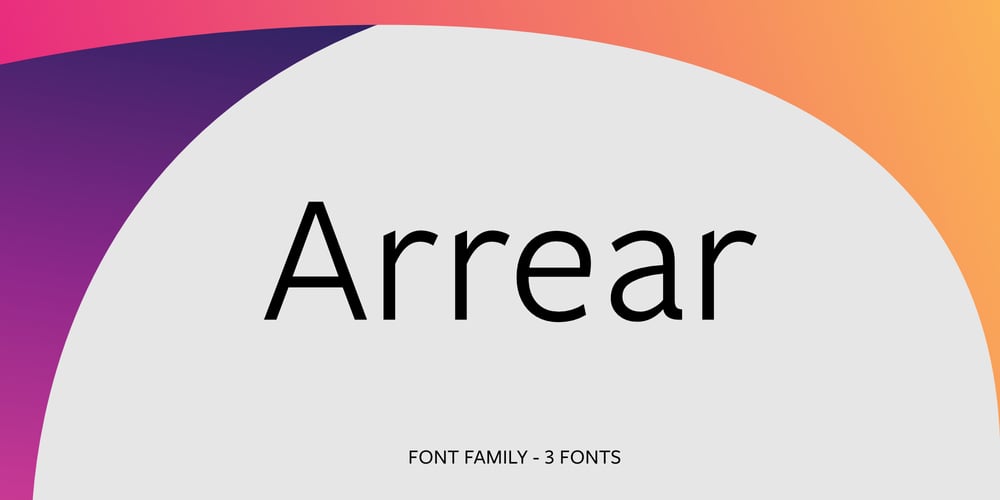
Arrear Font Family was designed by Kirill Malykhin and published by Kirill Malykhin. Arrear contains 3 styles and family package options. Arrear is a modern sans-serif font family. It includes three weights: regular, medium and bold. Has cut corners for lowercase letters. This is a versatile font that suits any project and is modern and easy to read. With it, you can create websites, logos, use in advertising, packaging, magazines and much more. This font will inspire you to create impressive designs that will amaze everyone! Multilingual support: extended latin and cyrillic.